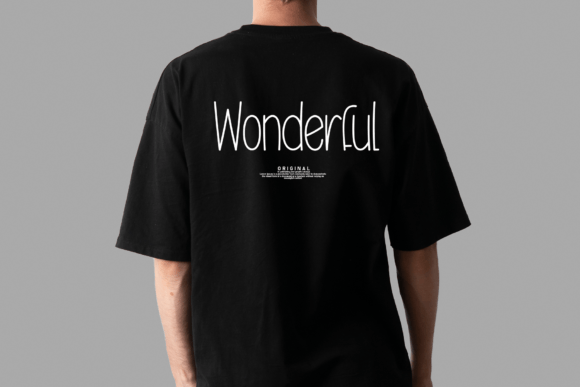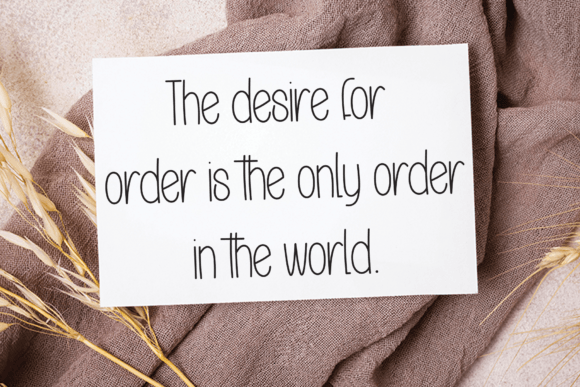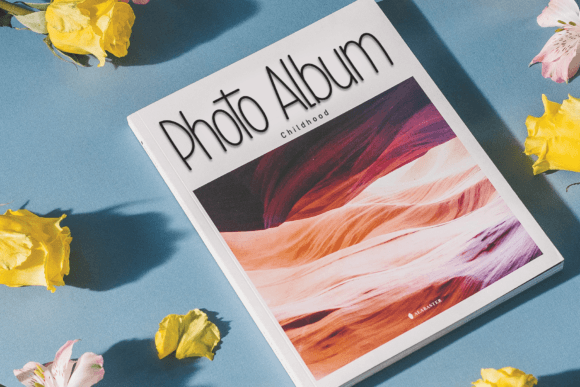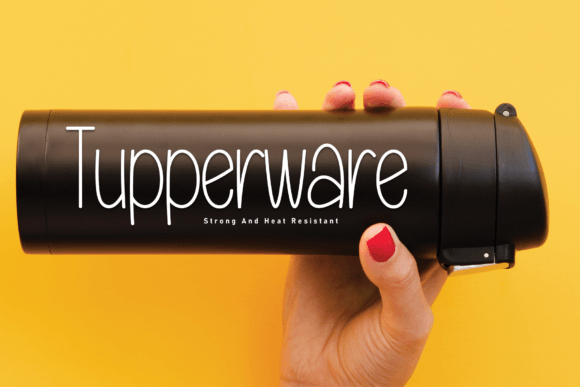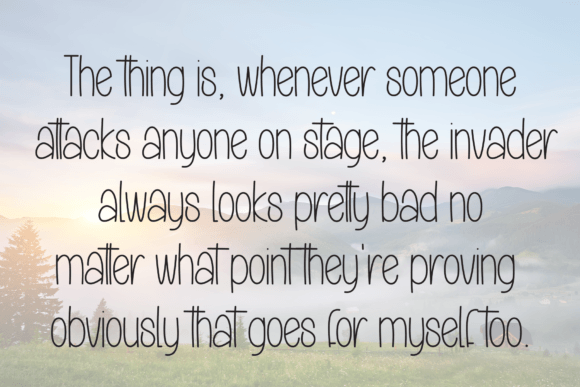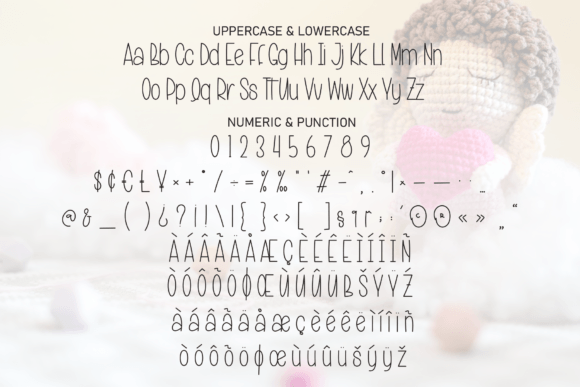
Babydoll Font: The Perfect Addition to Your Design Arsenal
In the world of typography, fonts play a crucial role in conveying the tone and personality of a design. If you’re looking for a font that exudes a relaxed, friendly vibe, look no further than Babydoll Font. This casual handwritten font has been gaining popularity among designers and crafters alike, and for good reason. In this article, we’ll dive into the world of Babydoll Font, exploring its unique characteristics, uses, and benefits.
What is Babydoll Font?
Babydoll Font is a beautiful, casual handwritten font that captures the essence of a relaxed and friendly vibe. Its natural, flowing strokes give it a unique and charming personality, making it perfect for a variety of design projects. Whether you’re working on a personal project, creating social media content, or designing invitations, Babydoll Font is sure to bring an effortless, charming touch to your design.
Key Characteristics of Babydoll Font
So, what makes Babydoll Font so special? Here are some of its key characteristics:
• Natural and flowing strokes: Babydoll Font features natural, flowing strokes that give it a relaxed and friendly feel.
• Casual and handwritten: This font has a casual, handwritten look that’s perfect for designs that require a personal touch.
• Effortless and charming: Babydoll Font adds an effortless, charming touch to any design, making it perfect for projects that require a lighthearted and friendly vibe.
Uses of Babydoll Font
Babydoll Font is a versatile font that can be used in a variety of design projects, including:
• Personal projects: Whether you’re designing a personal blog, a portfolio, or a social media profile, Babydoll Font is a great choice.
• Social media: This font is perfect for creating social media content, such as Instagram posts, Facebook updates, and Twitter tweets.
• Invitations: Babydoll Font is ideal for designing invitations, such as birthday party invitations, wedding invitations, and baby shower invitations.
• Crafting and DIY projects: If you’re a crafter or DIY enthusiast, Babydoll Font is a great addition to your design arsenal. Use it to create titles, headings, and other design elements for your projects.
Benefits of Using Babydoll Font
So, why should you use Babydoll Font in your design projects? Here are some benefits:
• Adds warmth and authenticity: Babydoll Font adds a warm and authentic touch to any design, making it perfect for projects that require a personal and friendly vibe.
• Easy to read: This font is easy to read, even at small sizes, making it perfect for body text and captions.
• Versatile: Babydoll Font can be used in a variety of design projects, from personal projects to commercial projects.
• Unique and creative: This font has a unique and creative personality that will set your design apart from others.
Tips for Using Babydoll Font
Here are some tips for using Babydoll Font in your design projects:
• Pair it with other fonts: Babydoll Font pairs well with other fonts, such as sans-serif fonts and serif fonts. Experiment with different font combinations to find the perfect look for your design.
• Use it for headings and titles: This font is perfect for headings and titles, but it can also be used for body text and captions.
• Experiment with colors and textures: Babydoll Font looks great in a variety of colors and textures. Experiment with different colors and textures to find the perfect look for your design.
In conclusion, Babydoll Font is a beautiful and versatile font that’s perfect for designers and crafters alike. Its natural, flowing strokes and casual, handwritten look make it ideal for a variety of design projects, from personal projects to commercial projects. With its effortless, charming touch and warm and authentic personality, Babydoll Font is sure to become a staple in your design arsenal.